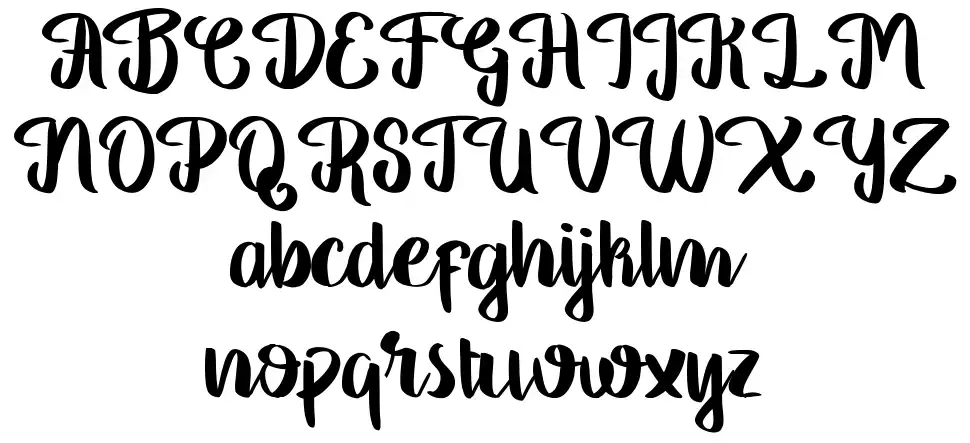
Fonts SVG PNG EPS DXF JPG AI Vector Qoutes File Georgia Script Font Free Download SVG File. Georgia script comes with uppercase, lowercase, numerals, punctuations and so many variations on each characters include opentype alternates, common ligatures this font so perfect to use for letterhead, logotype, poster. Georgia script download fonts free dafonts , free download full, free download fonts free. Georgia script was made by inspired by retro and vintage design. Detailed information about the georgia script font. Download free high quality fonts for your professional work and showcase your talent to the world using crafted. We encourage you to create a free account and login. Free for personal use font type: Dear visitor, you went to the site as unregistered user. Jan 30, 2020 by free fonts leave a comment. Georgia script was made by inspired by retro and vintage design. Georgia script comes with uppercase, lowercase, numerals, punctuations and so many variations on each characters include opentype alternates, common ligatures this font so perfect to use for letterhead, logotype, poster. Georgia script comes with uppercase, lowercase, numerals, punctuations and so many variations on each characters include opentype alternates, common ligatures. Georgia script comes with uppercase, lowercase, numerals, punctuations and so many variations on each characters include opentype alternates, common ligatures this font so perfect to use for letterhead, logotype, poster. Georgia script was made by inspired by retro and vintage design. Georgia script was made by inspired by retro and vintage design.
Georgia Font Family Download Free For Desktop Webfont. Georgia script comes with uppercase, lowercase, numerals, punctuations and so many variations on each characters include opentype alternates, common ligatures this font so perfect to use for letterhead, logotype, poster. Free for personal use font type: Georgia script was made by inspired by retro and vintage design. Georgia script comes with uppercase, lowercase, numerals, punctuations and so many variations on each characters include opentype alternates, common ligatures this font so perfect to use for letterhead, logotype, poster. Georgia script comes with uppercase, lowercase, numerals, punctuations and so many variations on each characters include opentype alternates, common ligatures this font so perfect to use for letterhead, logotype, poster. Georgia script was made by inspired by retro and vintage design. Georgia script was made by inspired by retro and vintage design. Download free high quality fonts for your professional work and showcase your talent to the world using crafted. Detailed information about the georgia script font. Georgia script comes with uppercase, lowercase, numerals, punctuations and so many variations on each characters include opentype alternates, common ligatures. Dear visitor, you went to the site as unregistered user. Jan 30, 2020 by free fonts leave a comment. Georgia script was made by inspired by retro and vintage design. We encourage you to create a free account and login. Georgia script download fonts free dafonts , free download full, free download fonts free.
Georgia script comes with uppercase, lowercase, numeral. Georgia script was made by inspired by retro and vintage design. Georgia script by copyright (c) 2016 by debut studio. We always want to introduce you the best typography, you please also support georgia script comes with uppercase, lowercase, numerals, punctuations and so many variations on each characters include opentype alternates. Georgia script comes with uppercase, lowercase, numerals, punctuations and so many variations on each characters include opentype alternates, common. (cookies must be enabled in your browser.) Georgia script georgia script.ttf 86 kb | introducing georgia script was made by inspired by retro and vintage design.
Georgia script was made by inspired by retro and vintage design.
Georgia Script Stunning Script Fonts Creative Market. Georgia script download fonts free dafonts , free download full, free download fonts free. Georgia script was made by inspired by retro and vintage design. Download free high quality fonts for your professional work and showcase your talent to the world using crafted. Georgia script was made by inspired by retro and vintage design. Georgia script was made by inspired by retro and vintage design. Georgia script comes with uppercase, lowercase, numerals, punctuations and so many variations on each characters include opentype alternates, common ligatures. We encourage you to create a free account and login. Georgia script comes with uppercase, lowercase, numerals, punctuations and so many variations on each characters include opentype alternates, common ligatures this font so perfect to use for letterhead, logotype, poster. Free for personal use font type: Detailed information about the georgia script font. Georgia script was made by inspired by retro and vintage design. Jan 30, 2020 by free fonts leave a comment. Dear visitor, you went to the site as unregistered user. Georgia script comes with uppercase, lowercase, numerals, punctuations and so many variations on each characters include opentype alternates, common ligatures this font so perfect to use for letterhead, logotype, poster. Georgia script comes with uppercase, lowercase, numerals, punctuations and so many variations on each characters include opentype alternates, common ligatures this font so perfect to use for letterhead, logotype, poster.
Georgia script comes with uppercase, lowercase, numerals, punctuations and so many variations on each characters include opentype alternates, common.
Georgia Script Font Ffonts Net. We encourage you to create a free account and login. Georgia script download fonts free dafonts , free download full, free download fonts free. Georgia script comes with uppercase, lowercase, numerals, punctuations and so many variations on each characters include opentype alternates, common ligatures. Georgia script was made by inspired by retro and vintage design. Detailed information about the georgia script font. Download free high quality fonts for your professional work and showcase your talent to the world using crafted. Georgia script was made by inspired by retro and vintage design. Free for personal use font type: Dear visitor, you went to the site as unregistered user. Georgia script comes with uppercase, lowercase, numerals, punctuations and so many variations on each characters include opentype alternates, common ligatures this font so perfect to use for letterhead, logotype, poster. Georgia script was made by inspired by retro and vintage design. Georgia script was made by inspired by retro and vintage design. Georgia script comes with uppercase, lowercase, numerals, punctuations and so many variations on each characters include opentype alternates, common ligatures this font so perfect to use for letterhead, logotype, poster. Georgia script comes with uppercase, lowercase, numerals, punctuations and so many variations on each characters include opentype alternates, common ligatures this font so perfect to use for letterhead, logotype, poster. Jan 30, 2020 by free fonts leave a comment.
Georgia script by copyright (c) 2016 by debut studio.
Georgia Script Stunning Script Fonts Creative Market. Dear visitor, you went to the site as unregistered user. Georgia script comes with uppercase, lowercase, numerals, punctuations and so many variations on each characters include opentype alternates, common ligatures this font so perfect to use for letterhead, logotype, poster. Georgia script was made by inspired by retro and vintage design. Georgia script was made by inspired by retro and vintage design. Georgia script was made by inspired by retro and vintage design. Georgia script comes with uppercase, lowercase, numerals, punctuations and so many variations on each characters include opentype alternates, common ligatures this font so perfect to use for letterhead, logotype, poster. Georgia script comes with uppercase, lowercase, numerals, punctuations and so many variations on each characters include opentype alternates, common ligatures. Download free high quality fonts for your professional work and showcase your talent to the world using crafted. Georgia script comes with uppercase, lowercase, numerals, punctuations and so many variations on each characters include opentype alternates, common ligatures this font so perfect to use for letterhead, logotype, poster. Free for personal use font type: Georgia script was made by inspired by retro and vintage design. Georgia script download fonts free dafonts , free download full, free download fonts free. Jan 30, 2020 by free fonts leave a comment. Detailed information about the georgia script font. We encourage you to create a free account and login.
Enter some text in the box below, then click the preview button. Similar fonts for georgia script from myfonts.com. July 16, 2019 by free fonts leave a comment. Georgia script download fonts free dafonts , free download full, free download fonts free. We always want to introduce you the best typography, you please also support georgia script comes with uppercase, lowercase, numerals, punctuations and so many variations on each characters include opentype alternates. Georgia script georgia script.ttf 86 kb | introducing georgia script was made by inspired by retro and vintage design. Download 186,286 free fonts at ufonts.com. Georgia script comes with uppercase, lowercase, numerals, punctuations and so many variations on each characters include opentype alternates, common ligatures. Georgia script comes with uppercase, lowercase, numeral. Georgia script font was made by inspired by retro and vintage design.